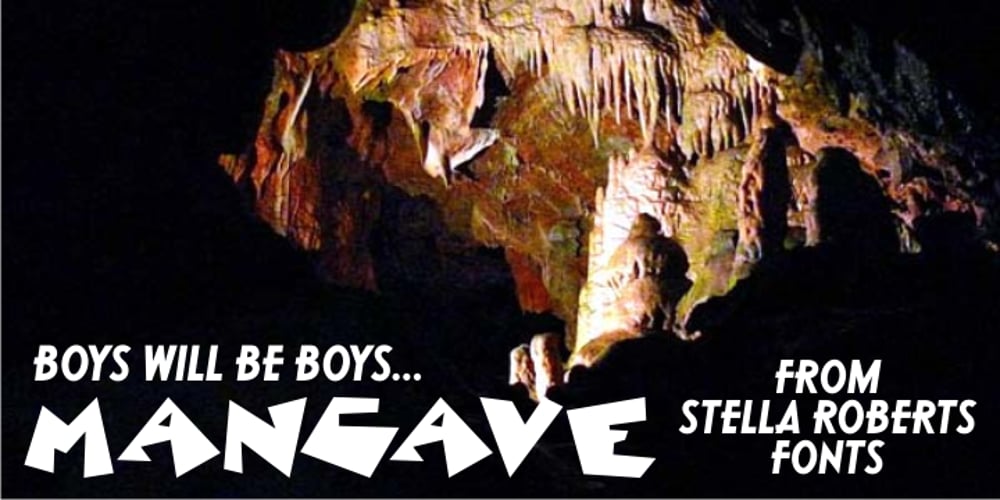
Mancave SRF Font Family was designed by published by Stella Roberts Fonts. Mancave SRF contains 1 styles and family package options. Mancave SRF is the perfect font for the ultimate party Neanderthal. Holding court in his den with a case of beer, wide screen TV and all of his sports buddies, he is safe and secure in his lair. Bold, brash and angular, this typeface was designed for Stella Roberts fonts by Jeff Levine. The net profits from my font sales help defer medical expenses for my siblings, who both suffer with Cystic Fibrosis and diabetes. Thank you.